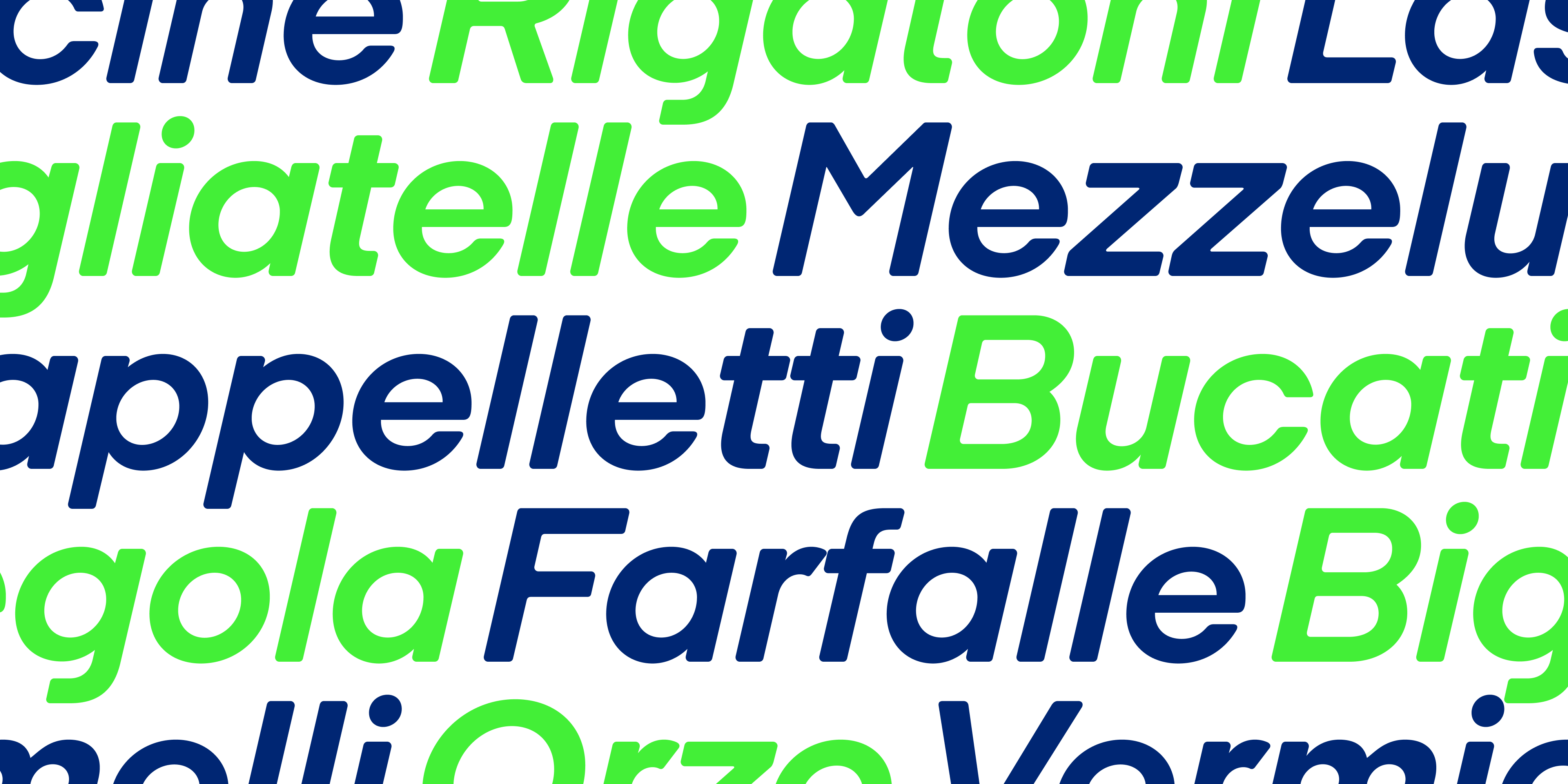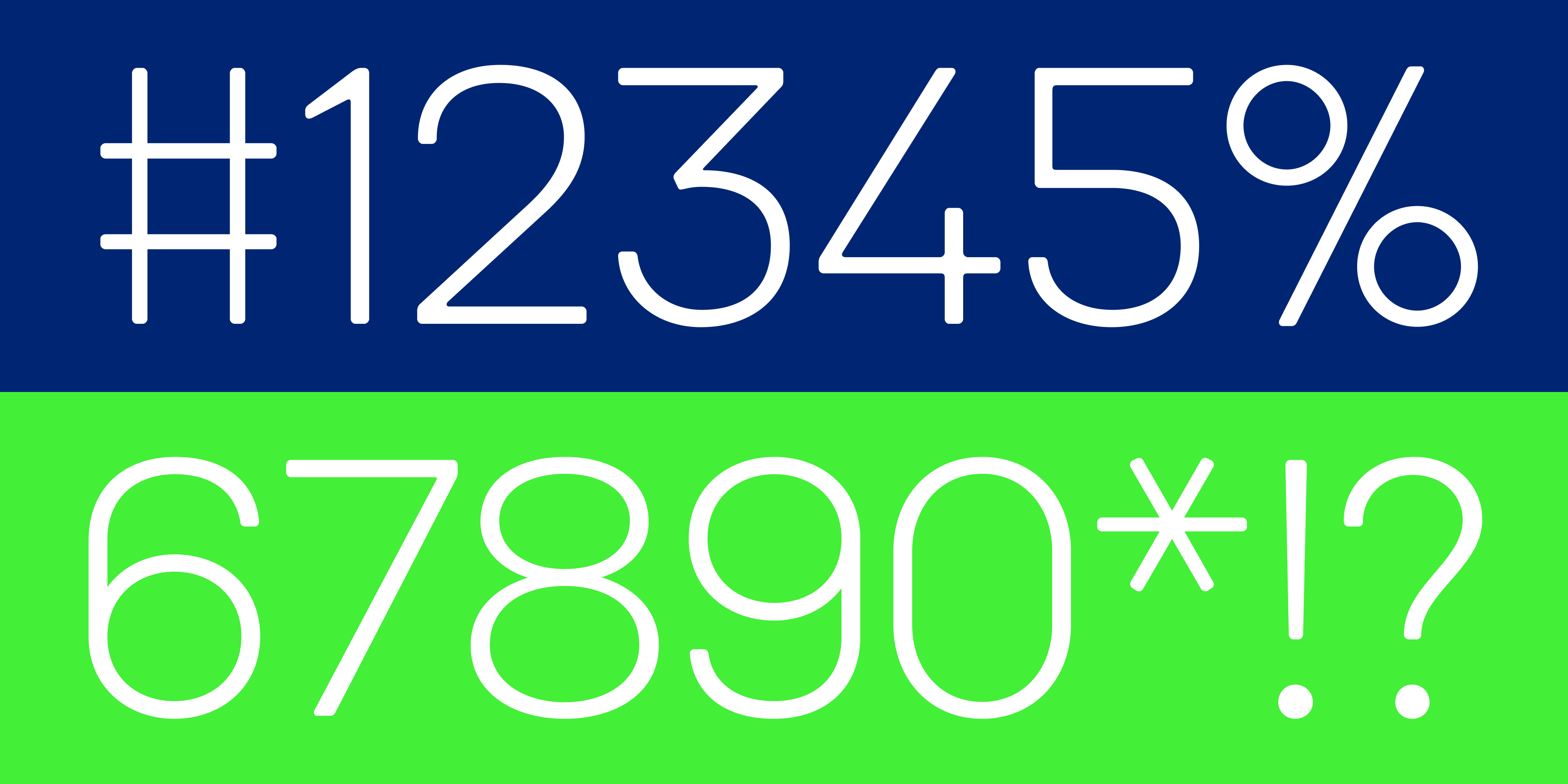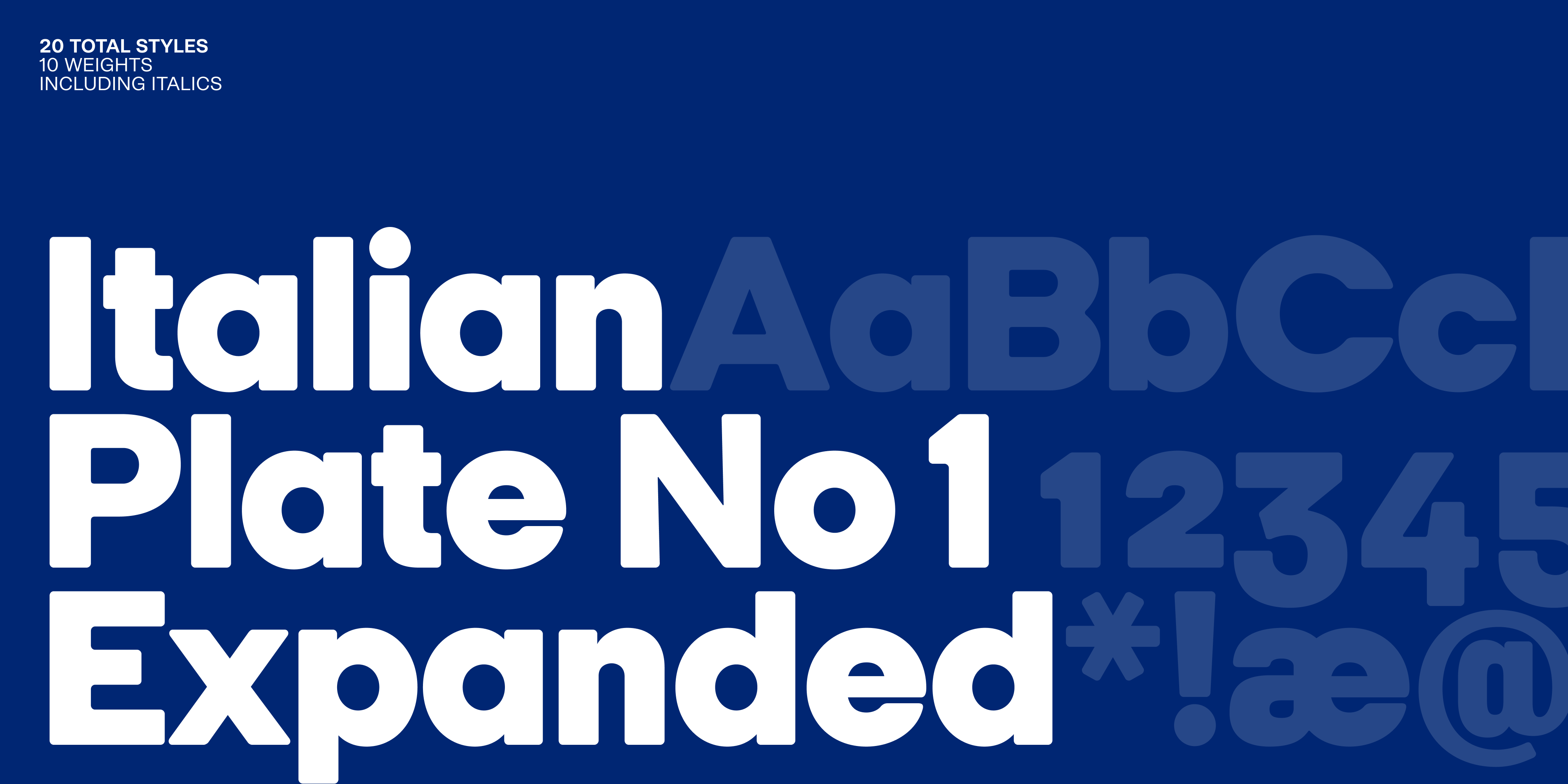
Italian Plate No1 Expanded
Designer Jonas Hecksher
Italian Plate No1 Expanded is an airy and full-bodied typeface, with a very open and complaisant look. The soft angles address the original purpose, where the typeface had to work with metal embossing. A clear difference in the silhouettes and the open spaces meet the need for legibility from a distance. The open spaces and round shapes on the letters such as ’a’, ’c’, ’h’, ’o’ and ’q’ widen the type, giving it a generous and friendly texture with a nice legibility. The complete super family goes from 1 to 7 and is a mix of various classes and widths – all in 10 weights with corresponding Italics and loaded with alternatives.